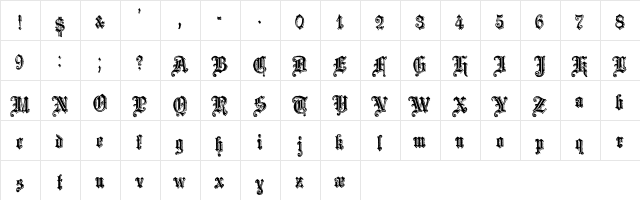
Archive School Text Regular
| Foundry | Archive Type |
| Designer | Archive Type |
Design Context for Archive School Text Typeface
Archive School Text is a composed and adaptable typeface that performs quietly and consistently across a wide range of design contexts.